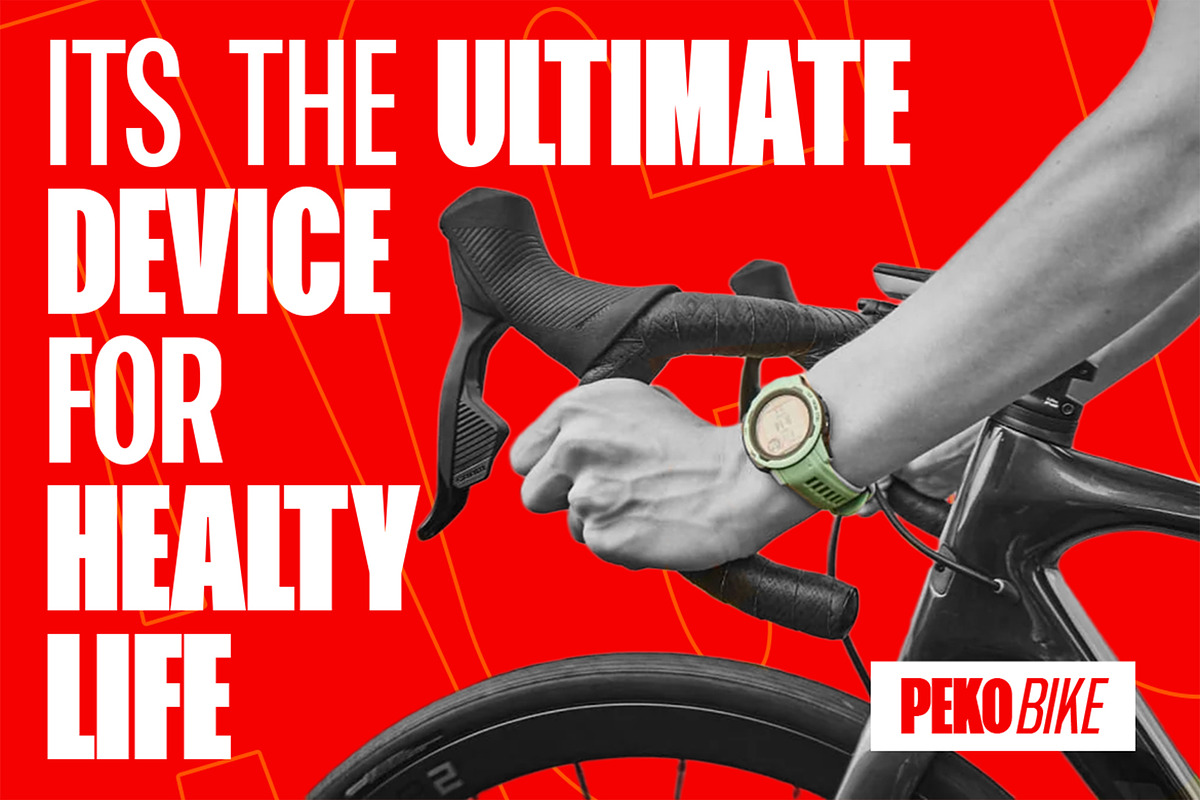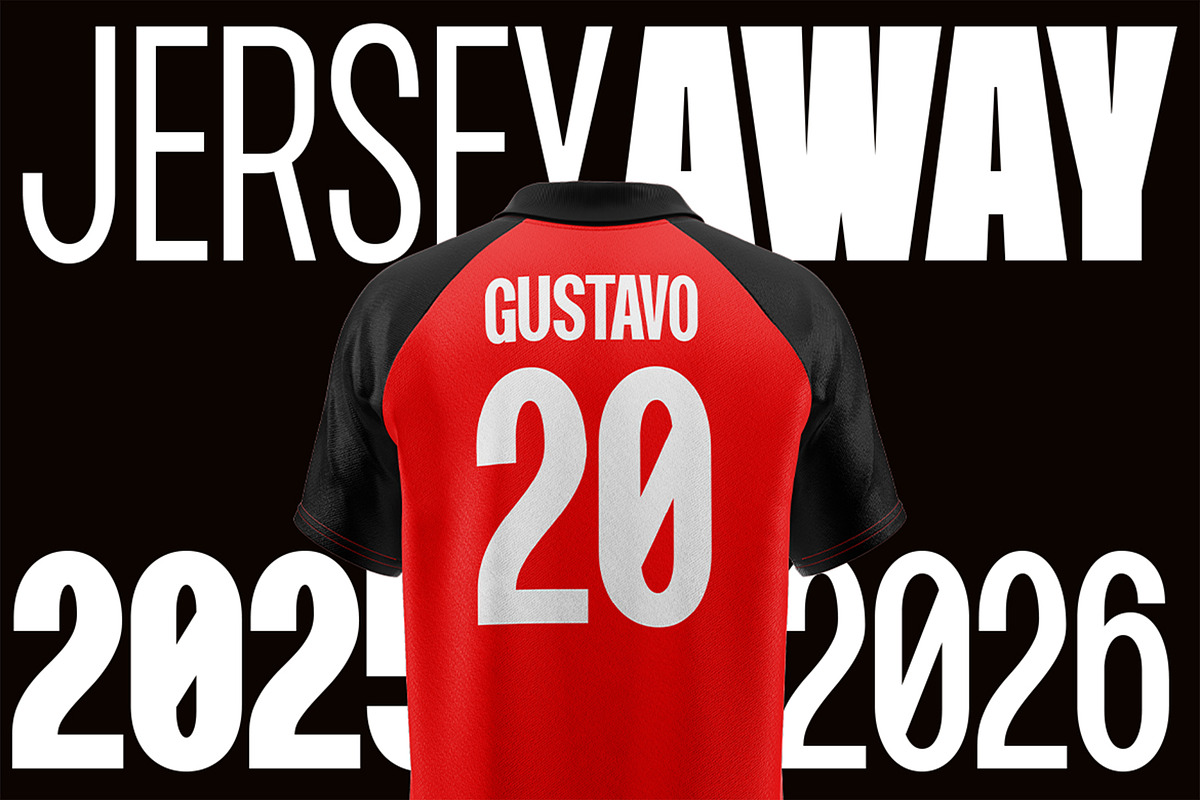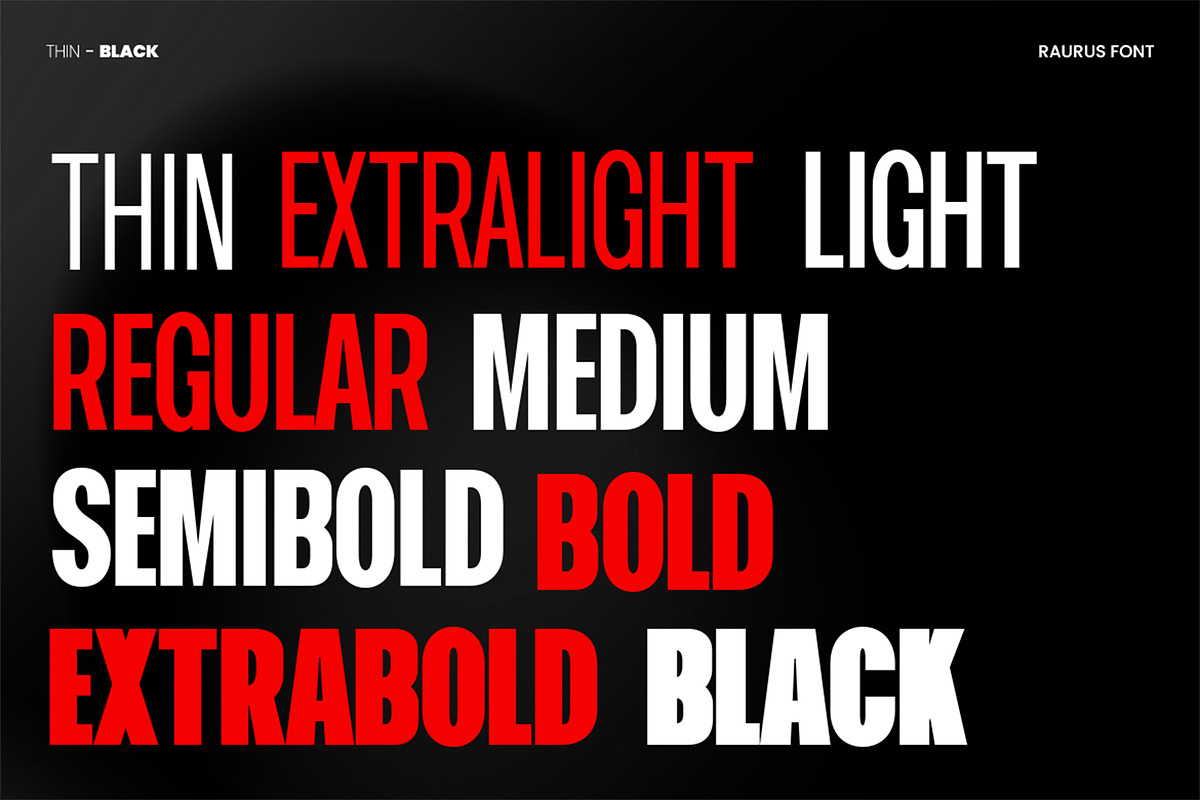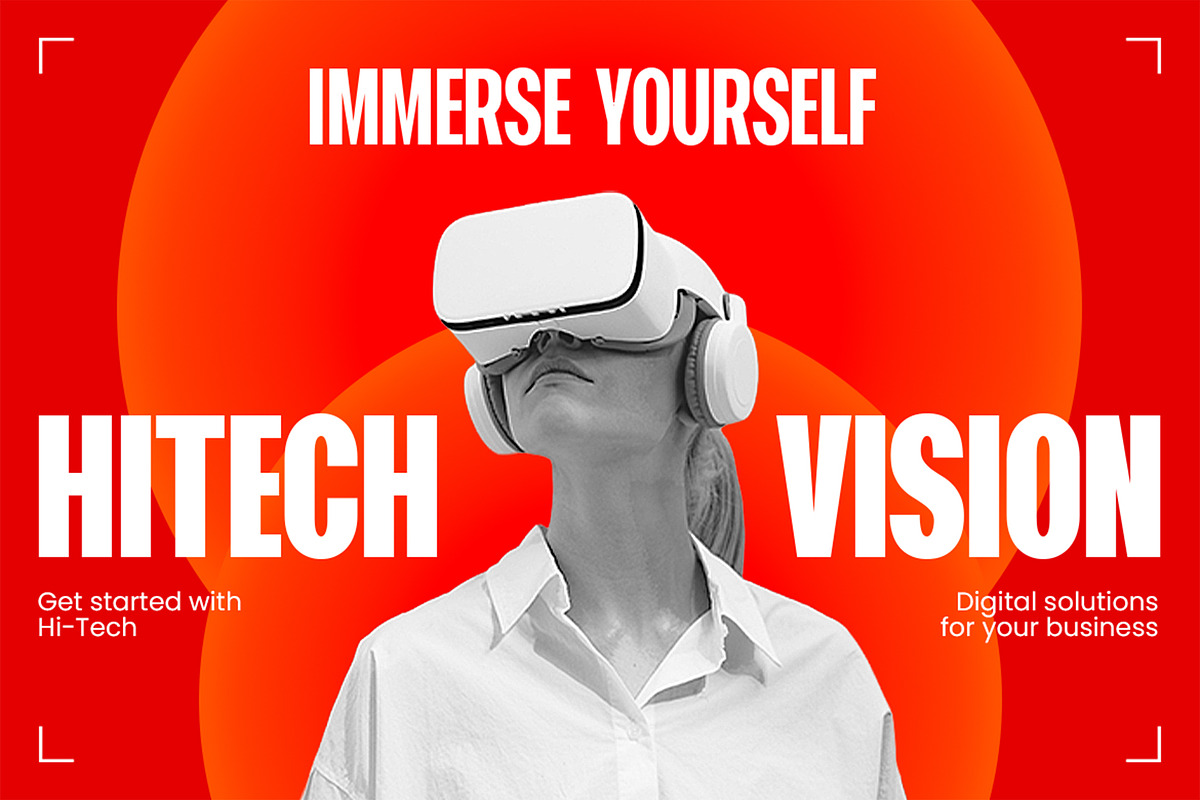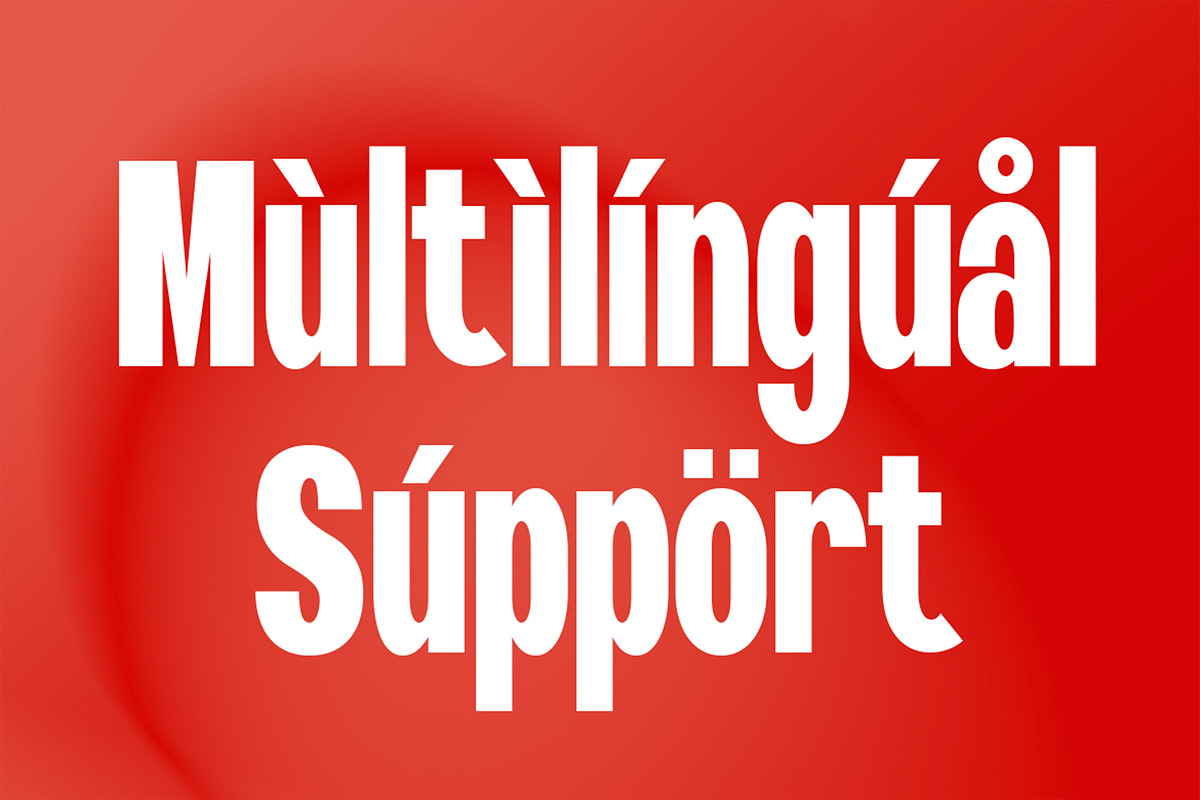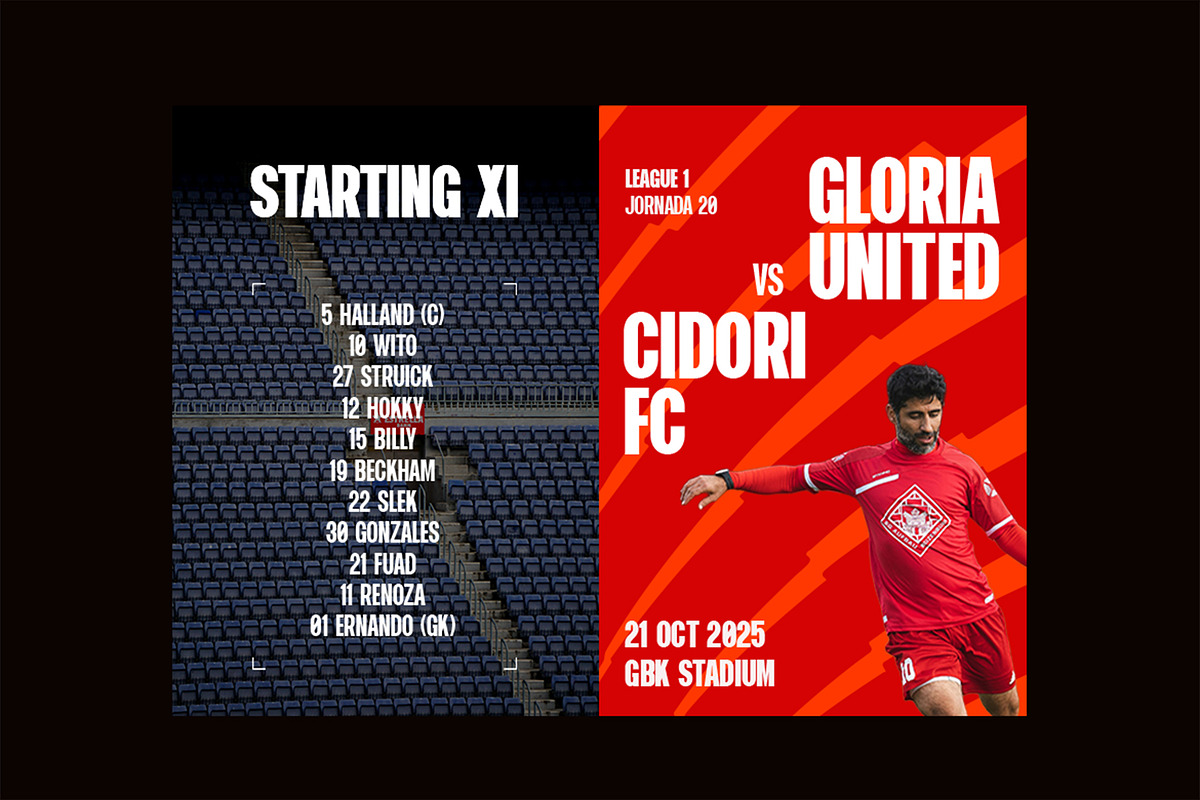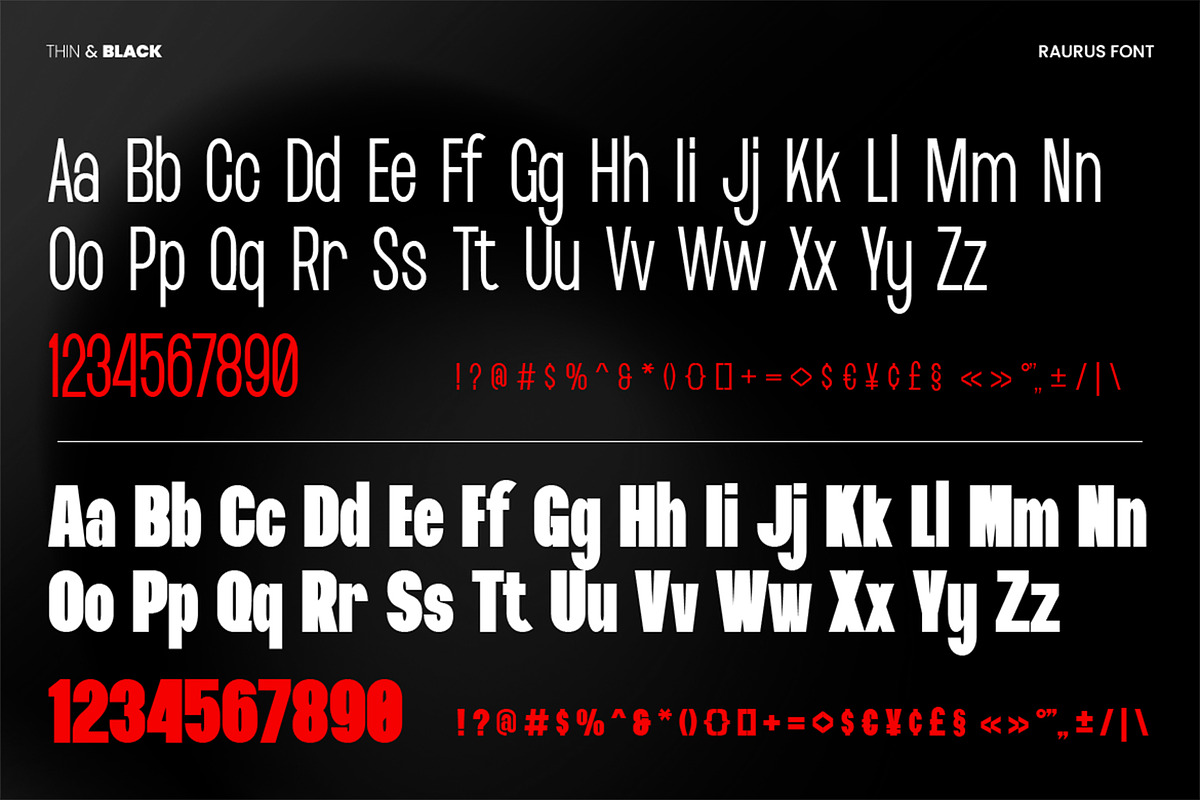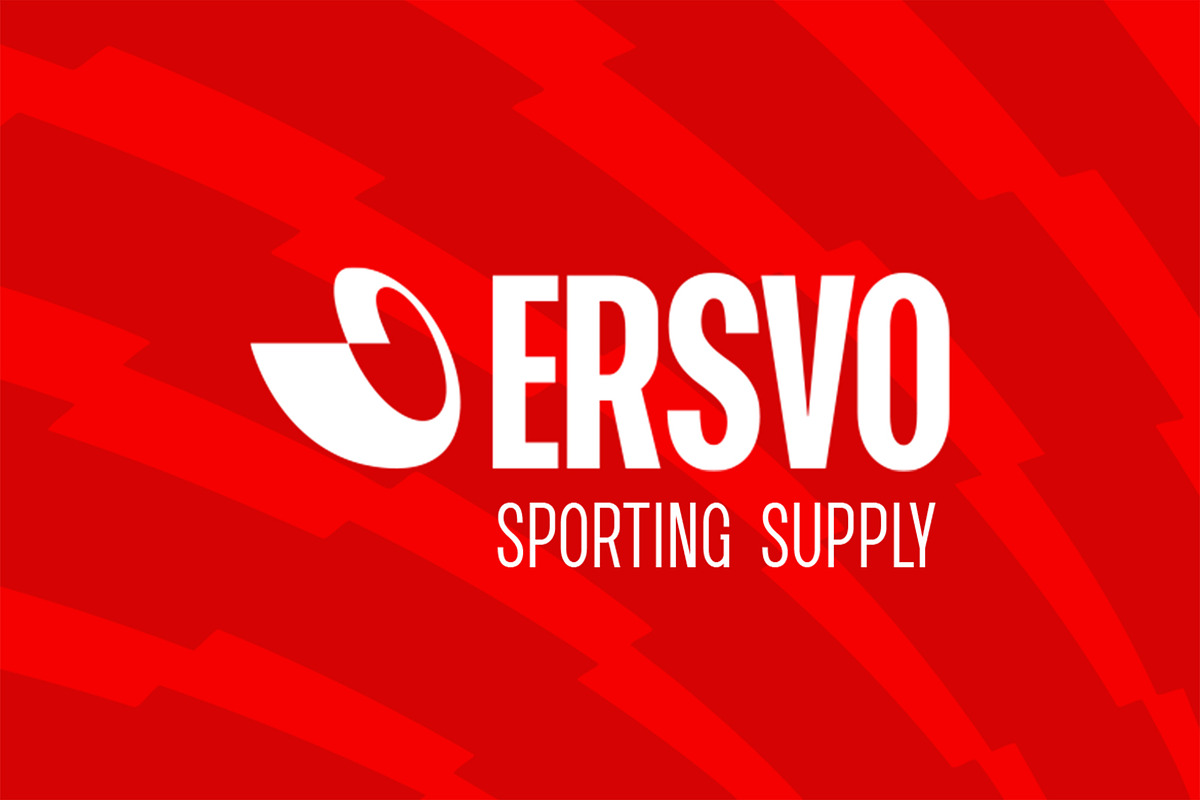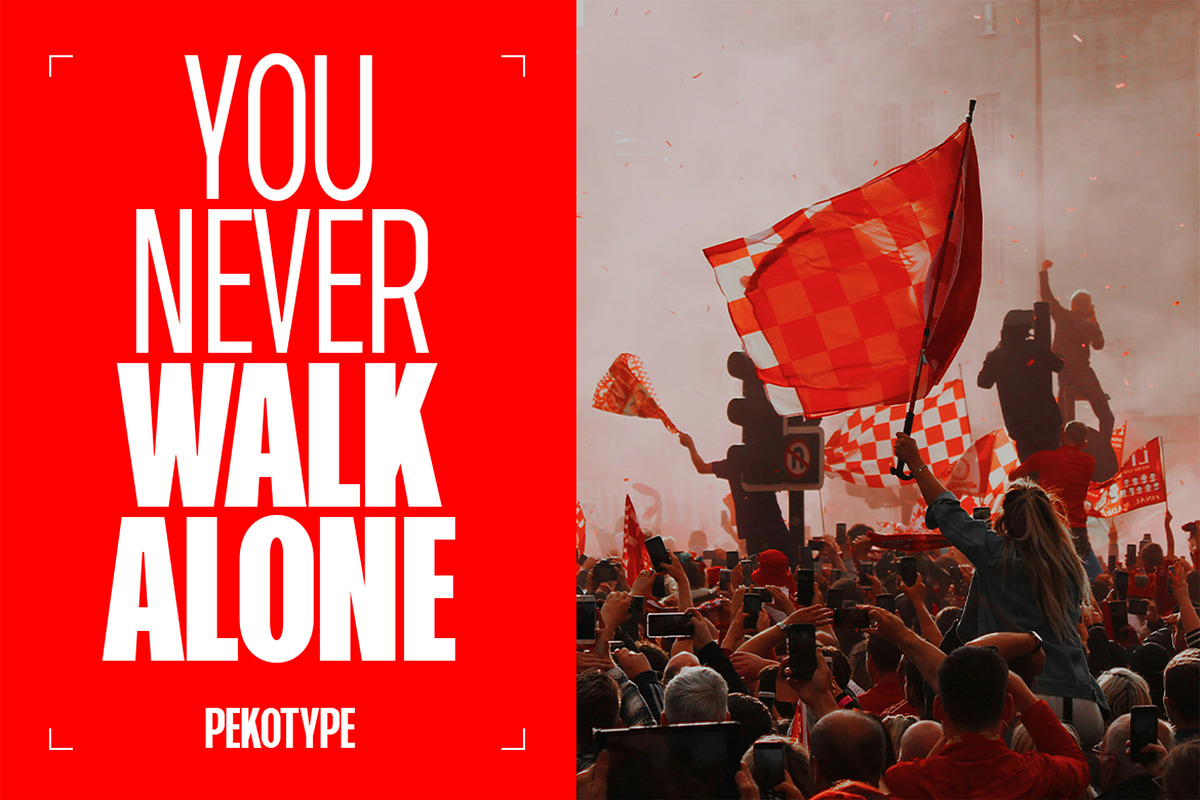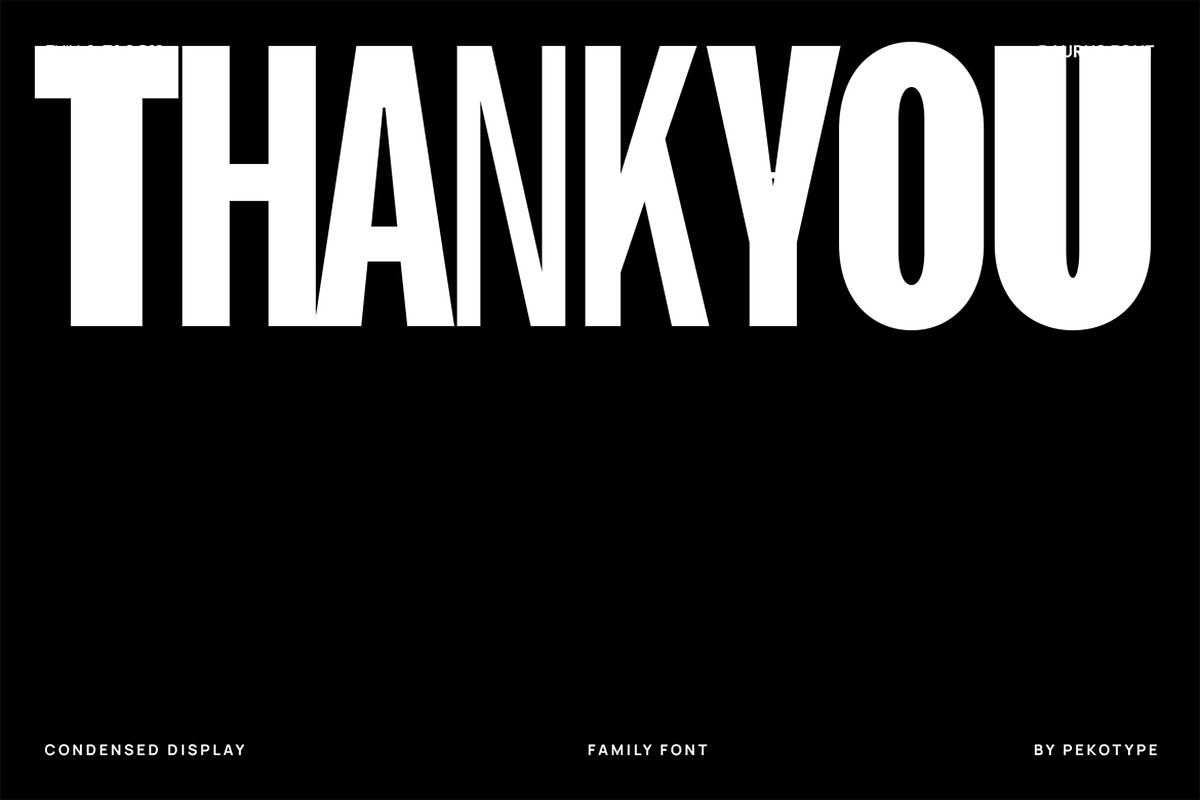
Raurus Condensed Display Family Font
RAURUS – Bold Condensed Display Font RAURUS is a strong and modern condensed display typeface designed to make a bold statement. With its powerful structure and sleek condensed style, this font is perfect for projects that demand attention and confidence.
Whether you are working on branding, logo design, posters, sports design, advertising, or social media content, RAURUS brings a professional and striking look to your creative work.
This typeface comes with uppercase, lowercase, and complete family styles, making it versatile for various design needs. From minimal headlines to dynamic marketing visuals, RAURUS ensures your message stands out with clarity and impact.
If you are looking for a bold and condensed display font that combines strength, style, and readability, RAURUS is the perfect choice for your next project.
- Number, Symbol, & Punctuation